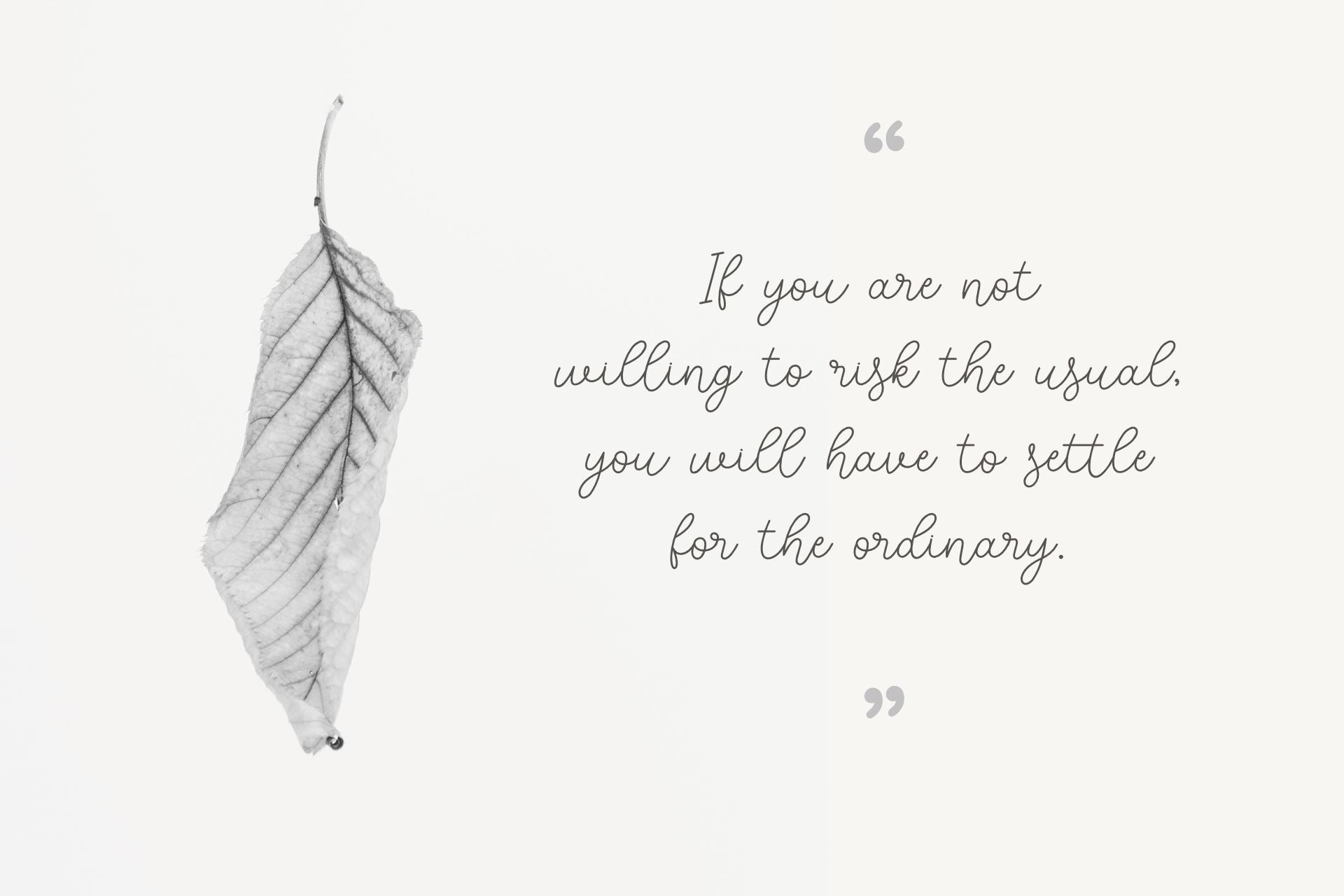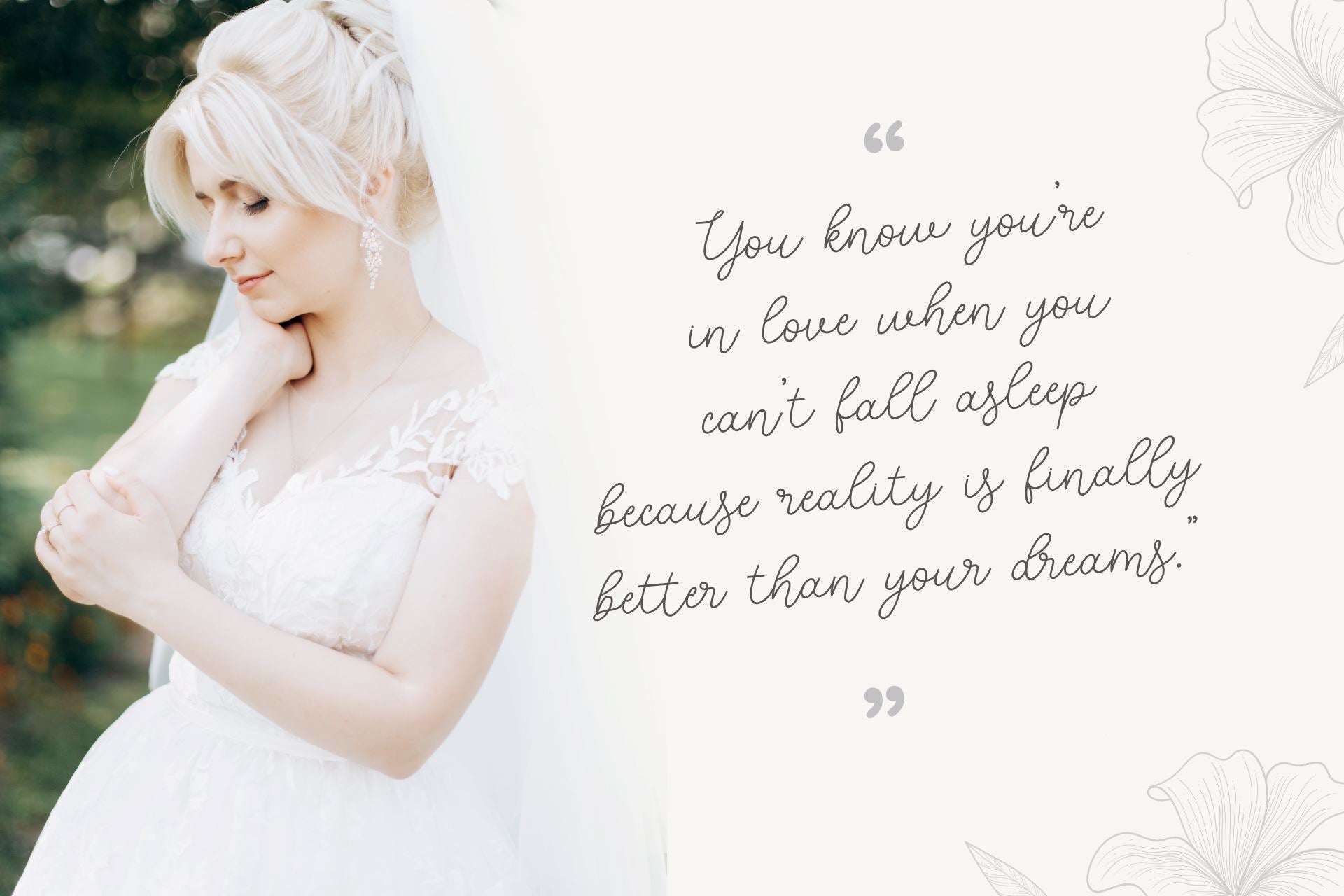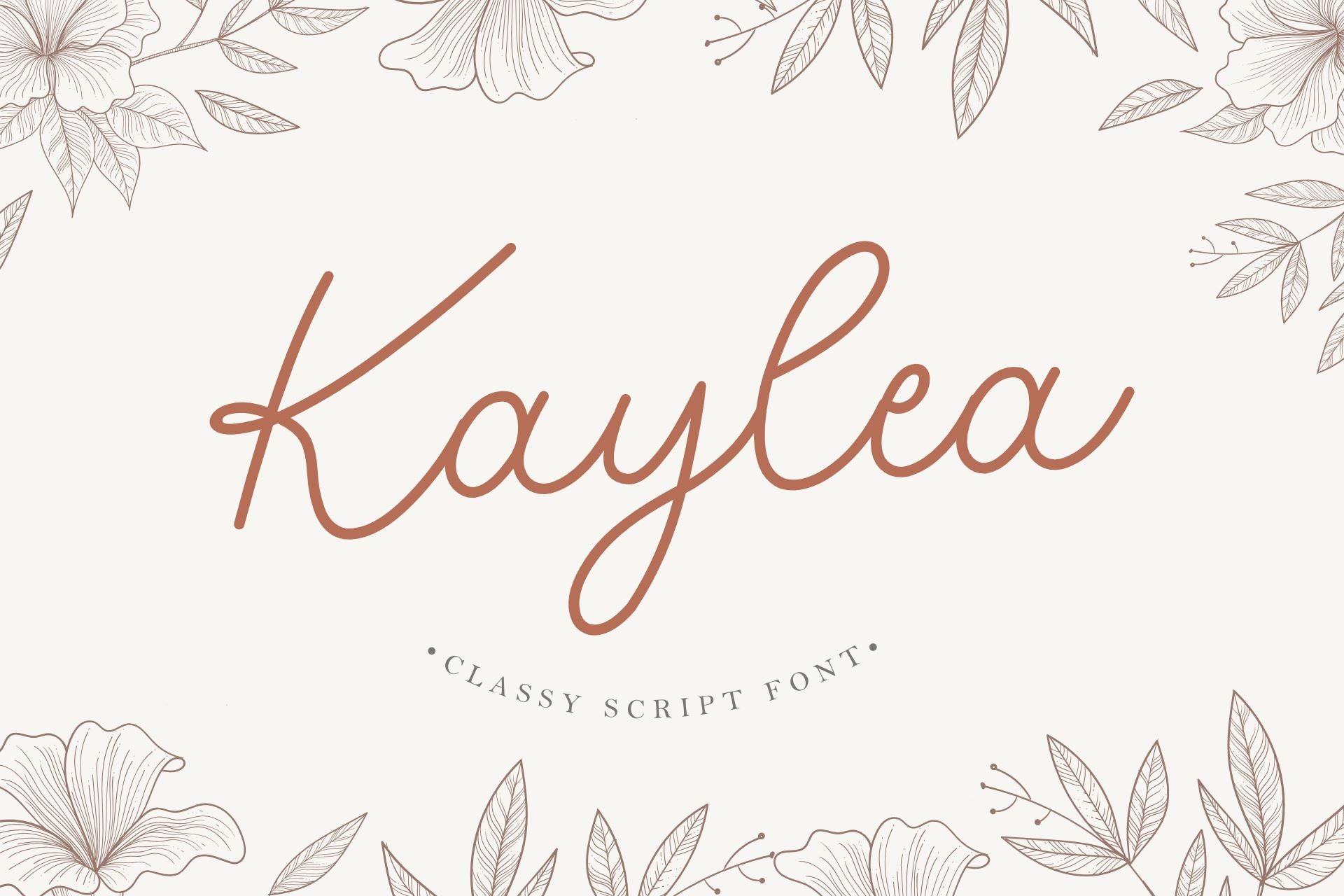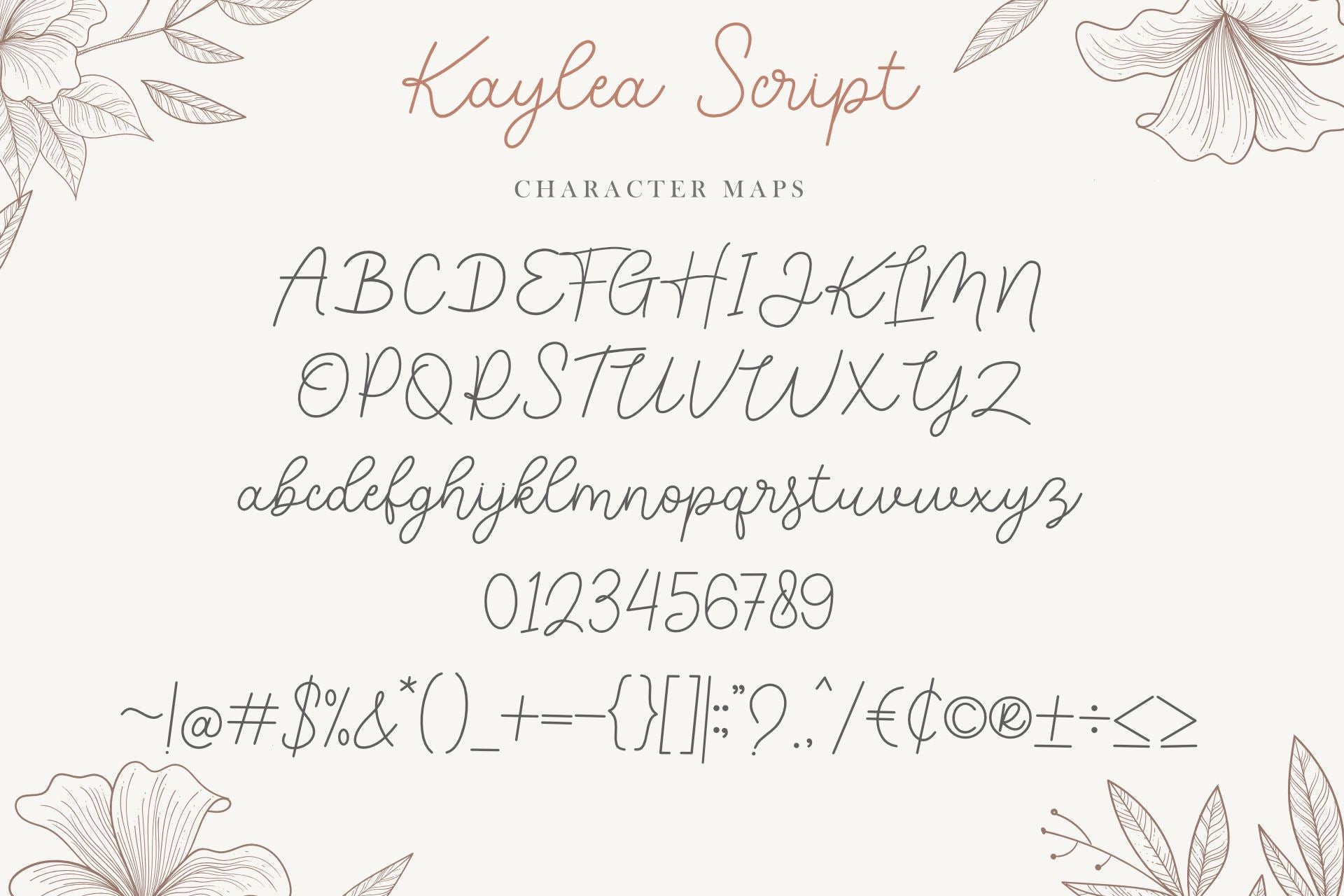
Kaylea Script
About Kaylea Script
Kaylea Script is a classy monoline script and a timeless handwritten font. It is the best choice for creating eye-catching logos, branding, and quotes. Every letter has a unique and beautiful touch, which will make your design come alive!